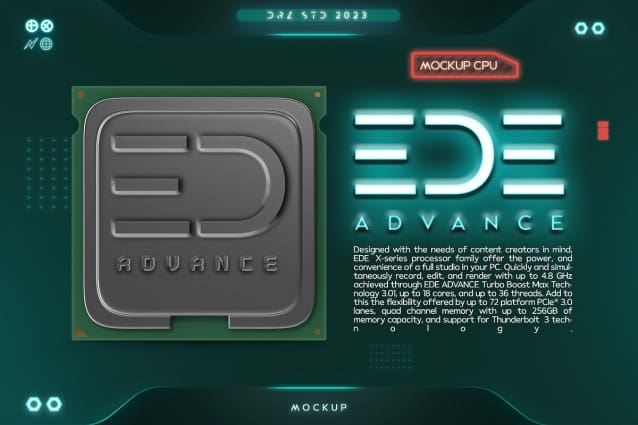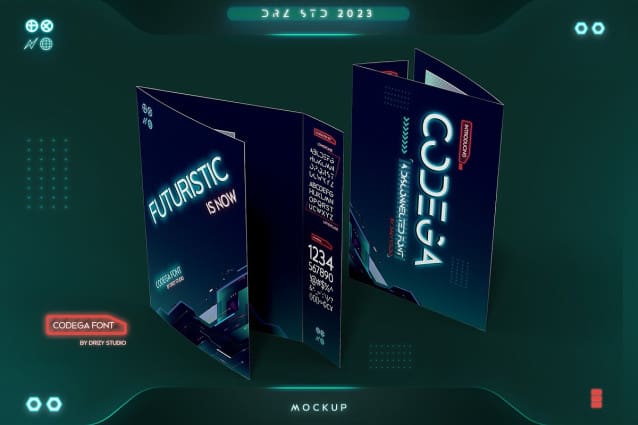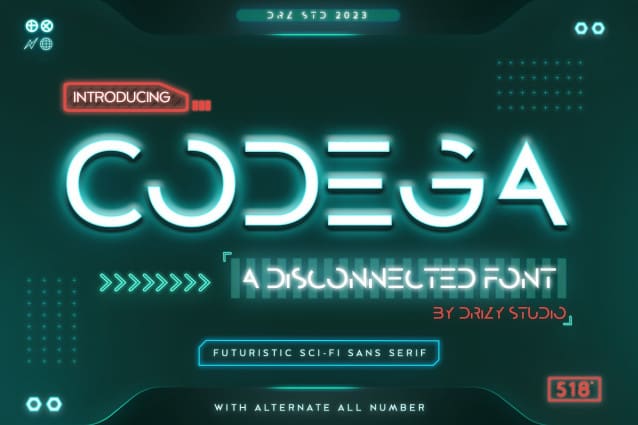
Codega Display Font
Codega Display Font – Sans Serif Disconnected Font Codega is a display sans serif font with disconnected styling from Drizy Studio. Offering all the styles you need for classic or modern theme projects.